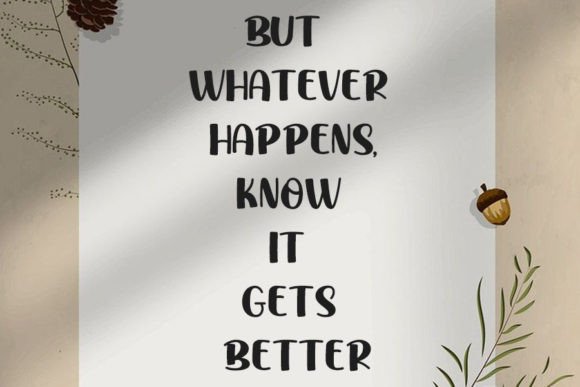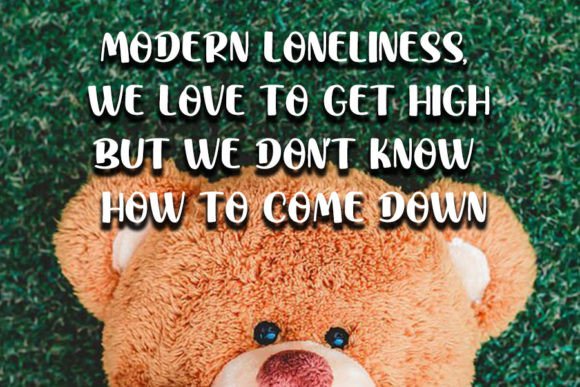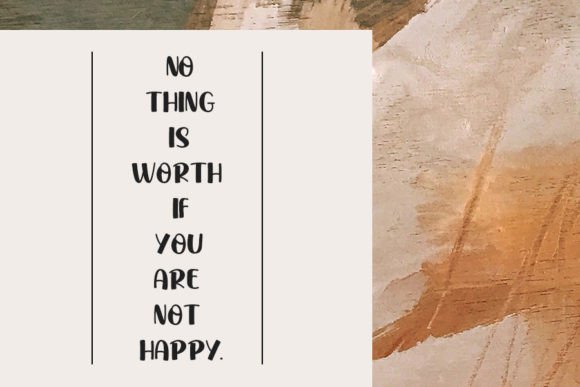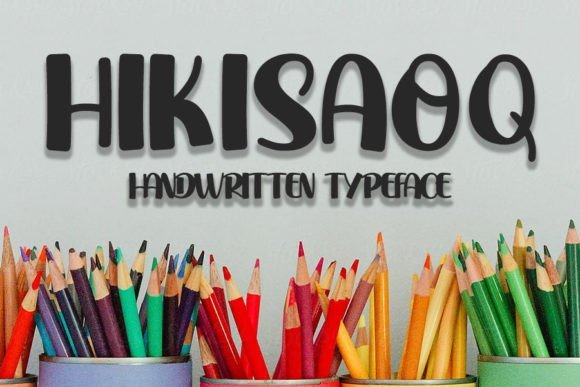
Introduction to Hikisaoq Font
Hikisaoq is a beautiful handwritten font with natural, flowing strokes and unique character.
Ideal for adding a personal touch to invitations, posters, and greeting cards Adds a touch of elegance to any design project.
Key Features of Hikisaoq Font
Why Choose Hikisaoq Font?
Hikisaoq Font offers exceptional quality and versatility, making it a valuable addition to your design toolkit. Whether you’re creating for personal projects or commercial use, Hikisaoq Font delivers professional results.